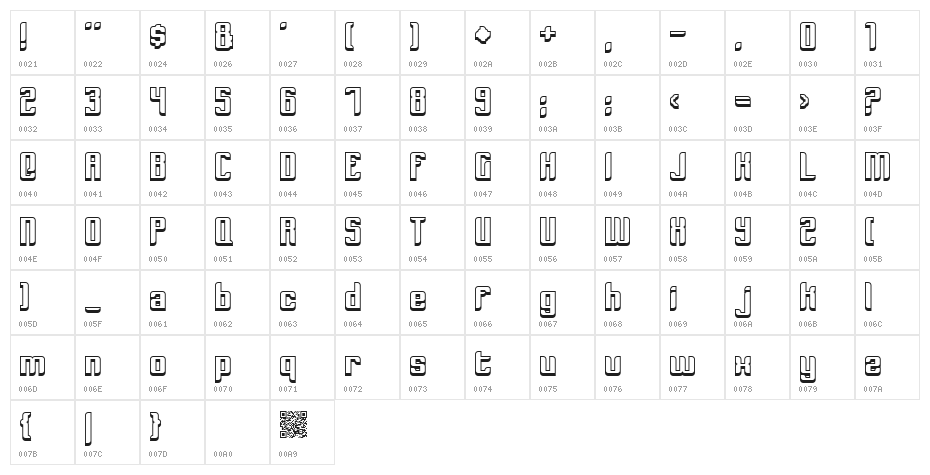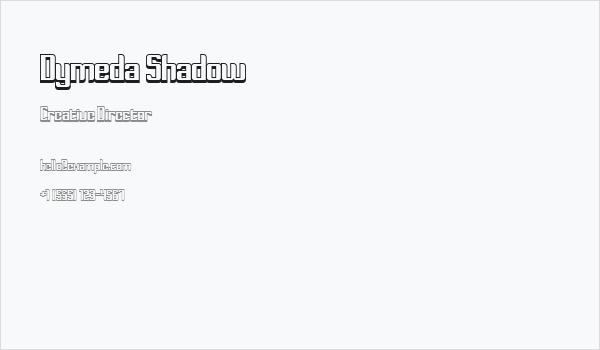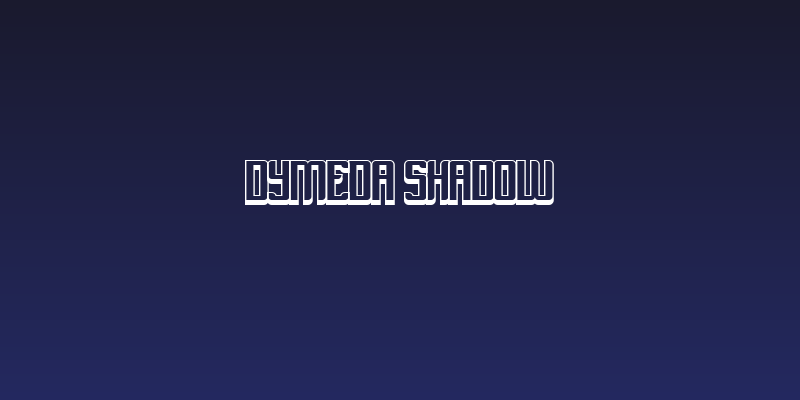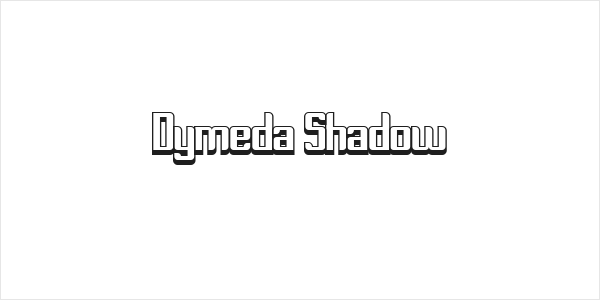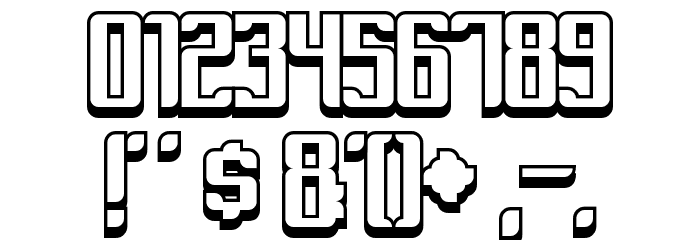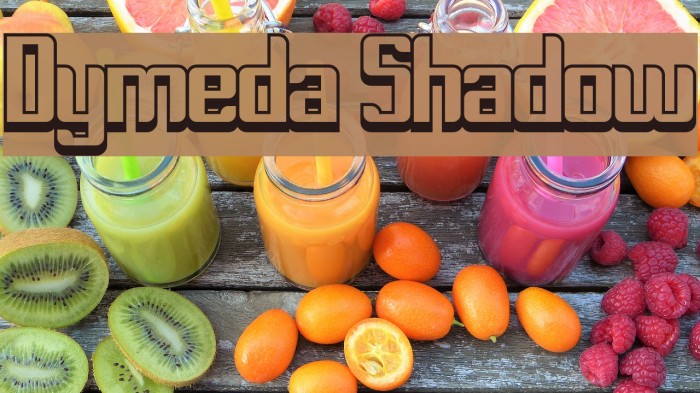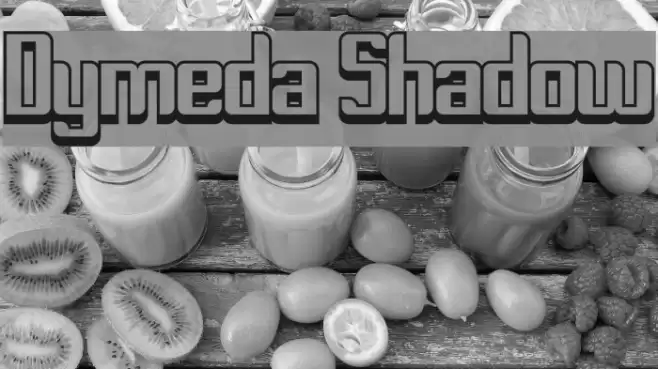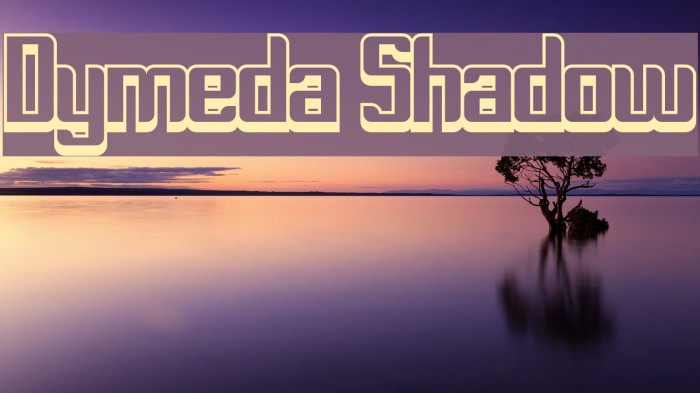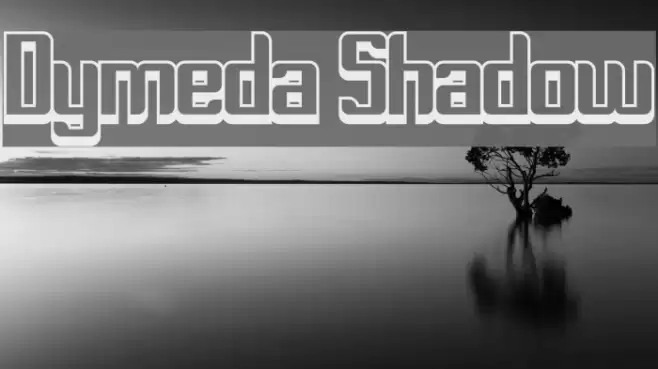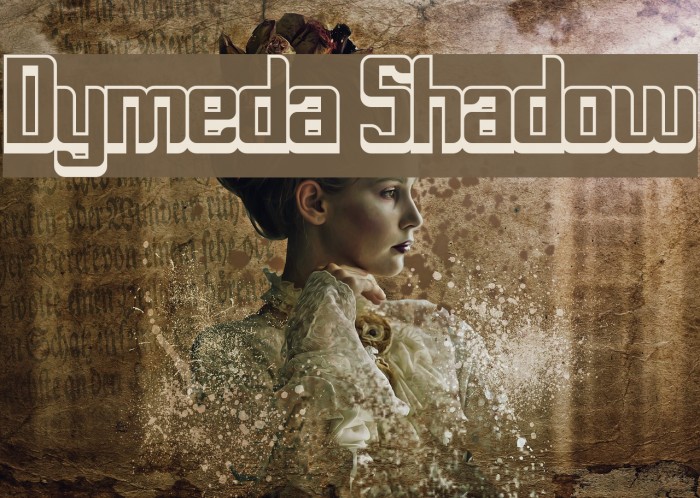
Dymeda Shadow Font
Dymeda Shadow Description
This font features a bold, geometric design with a shadow effect that gives it a three-dimensional appearance. The characters are constructed with thick, uniform strokes and sharp angles, creating a modern and impactful look. The shadow adds depth and a sense of movement, making the text stand out against any background. The uppercase and lowercase letters maintain a consistent style, with the lowercase being slightly more compact. Numbers and special characters follow the same design principles, ensuring a cohesive appearance across all text elements. This font is ideal for creating eye-catching headlines, posters, and branding materials where a strong visual impact is desired.
| Proposed Projects | Ideal for headlines, posters, branding, and any project requiring a strong visual impact. |